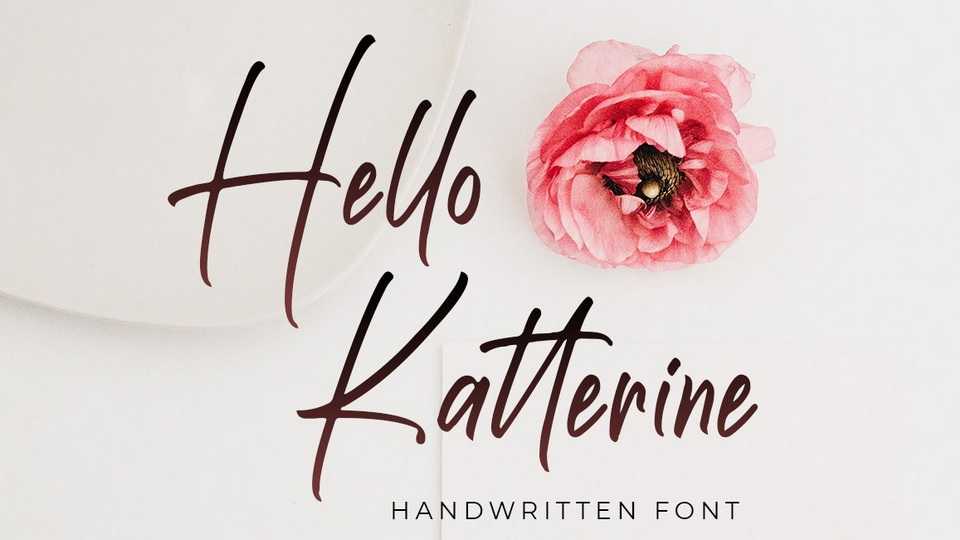
Download Hello Katterine font, a sweet and simple handwritten typeface with an elegant feel. Hello Katterine font is suitable for use on branding, web design, weddings, t-shirt designs, logo, magazines, quotes, fashion, watermarks, photography, invitations, packaging.